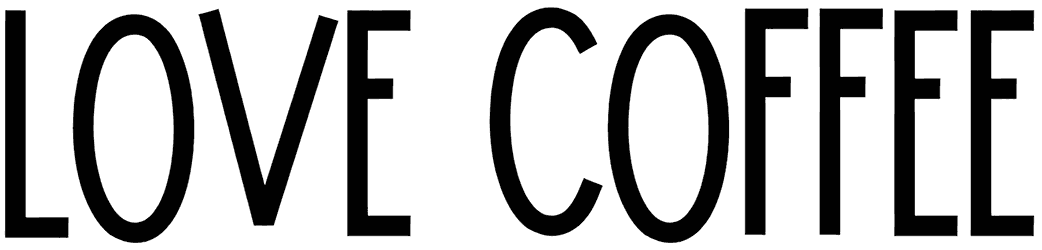
Love Coffee Font
With its fresh and natural look, the Love Coffee font is happy to show off its best when used to make posters, greeting cards, movie posters, flyers, and other things that need easy effects.
Love Coffee is a fancy coffee font that can help you express your strong emotions in your artwork. Even though it lacks lowercase letters, this isn’t a major issue. Choose a couple of other fancy fonts from our extensive library to go with this one.